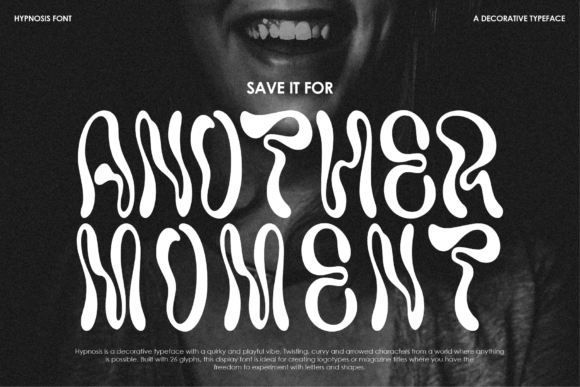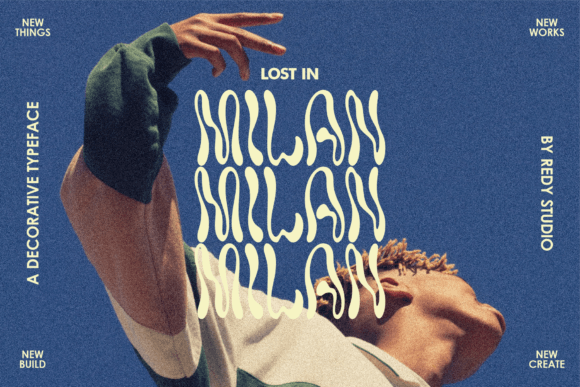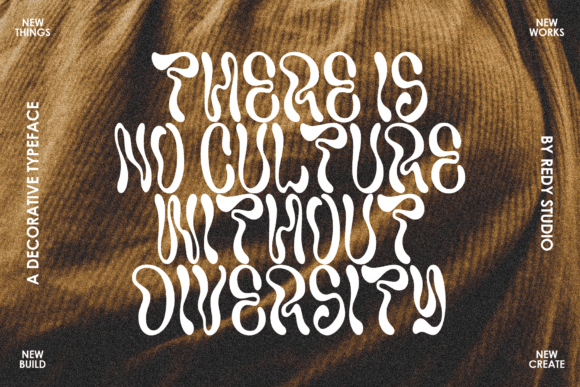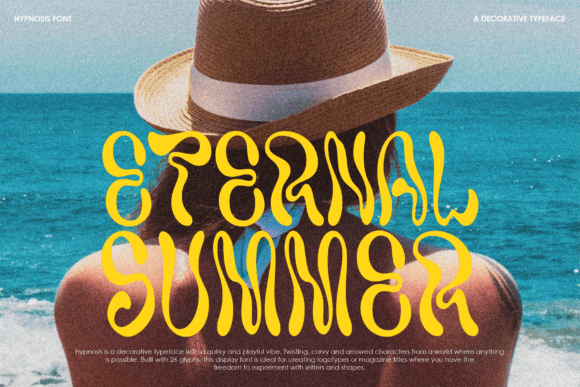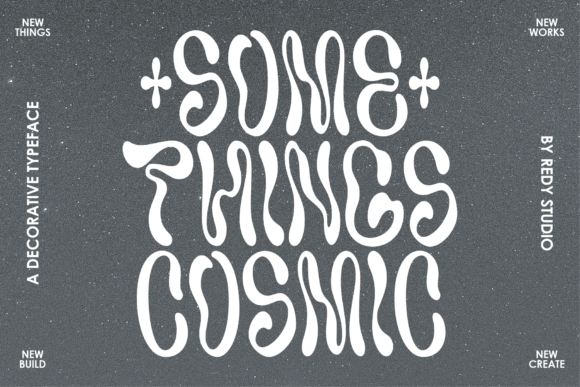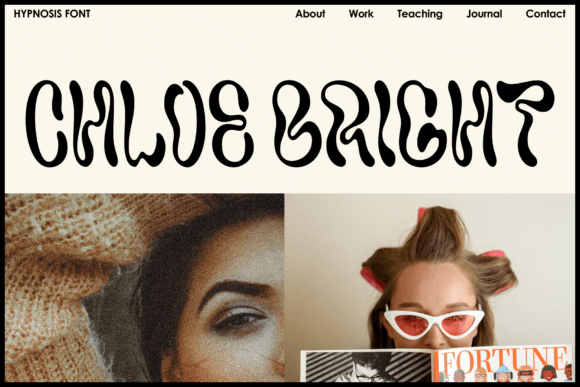
Introduction to Hypnosis Font
Hypnosis is a decorative typeface with a quirky and playful vibe.
Twisting, curvy and arrowed characters from a world where anything is possible This display font is ideal for creating logotypes or magazine titles where you have the freedom to experiment with letters and shapes.
Key Features of Hypnosis Font
Why Choose Hypnosis Font?